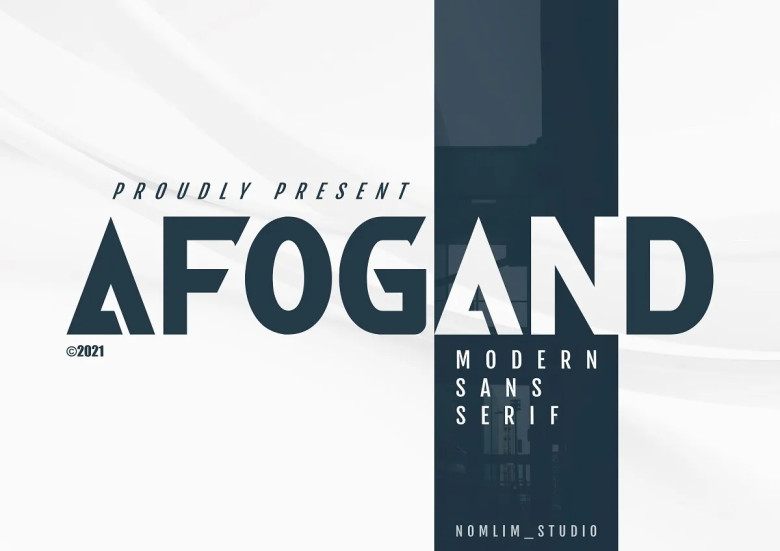
Afogand Font
Afogand combines modern sans serif style with versatility for use across various projects. This font will elevate your creative ideas to new heights while drawing people’s attention and leaving an everlasting impression.
Afogand Sans Serif Font